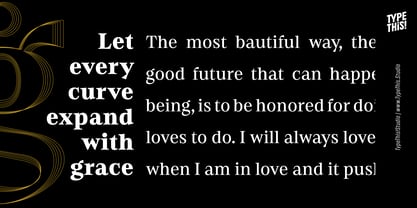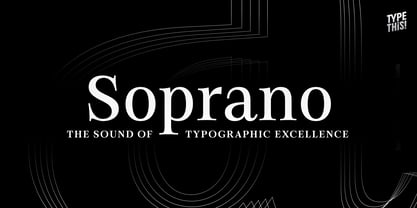
Soprano
La familia tipográfica Soprano fue diseñada por Anita Jürgeleit y publicada por TypeThis!Studio. Soprano contiene 5 estilos y opciones de paquete familiar.
A well-polished typeface is like the sweet sound of a melodious voice.
Soprano is designed for elegant and luxury design elements. Whether it's brands for watches, jewelry, cars or fine wines, Soprano adds the undeniable and outstanding beauty of a professional designed elegant typeface.
Soprano offers 5 weights and a full set of upper & lowercase letters, ligatures, old-style & lining figures as well as ​broad Latin​ language support.